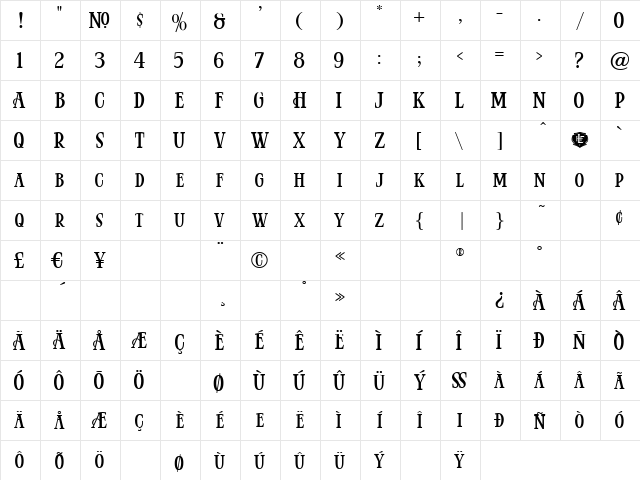
LHF Hertford REG Regular
Design Context for LHF Hertford REG Typeface
LHF Hertford REG takes a measured approach to typography — its balanced proportions and neutral character make it a reliable workhorse for both digital and print work.
Pro Tip: Use LHF Hertford REG in both headline and body roles to test its range before committing to a single application.